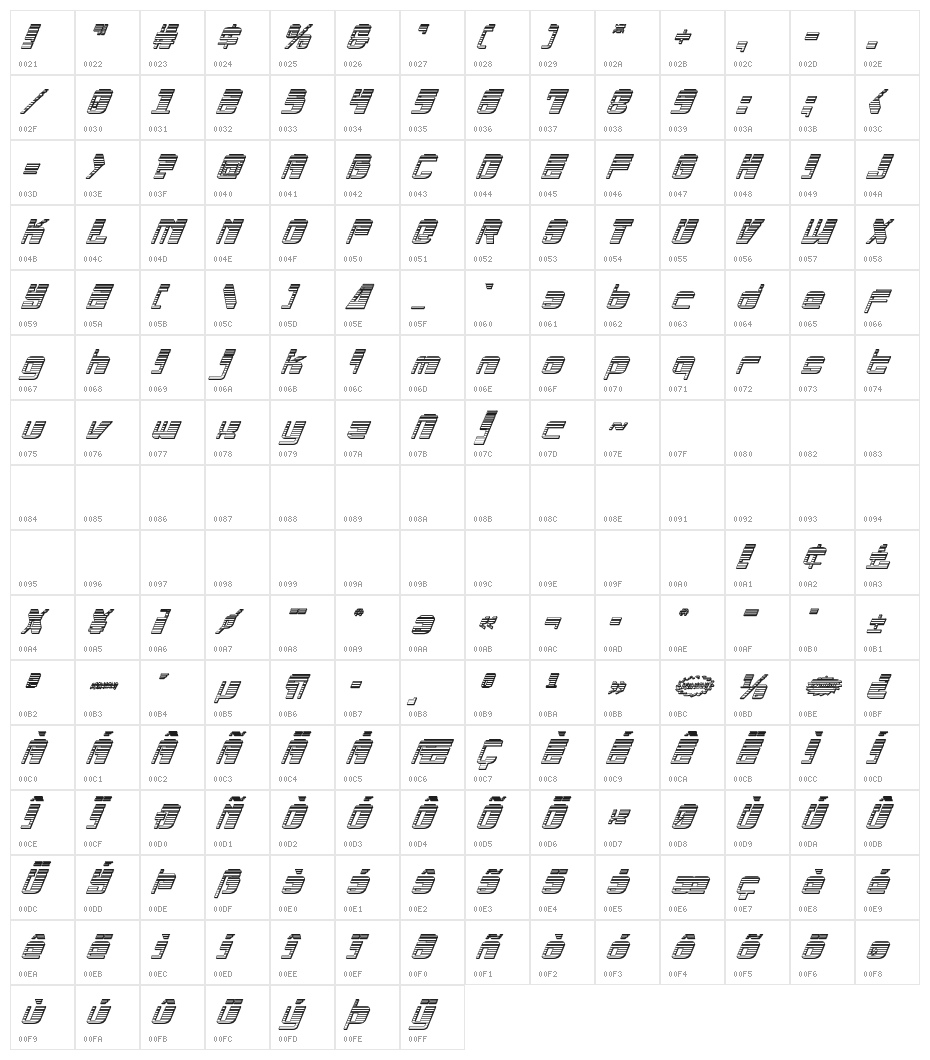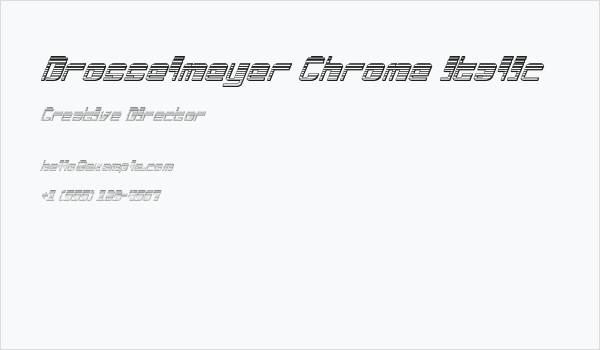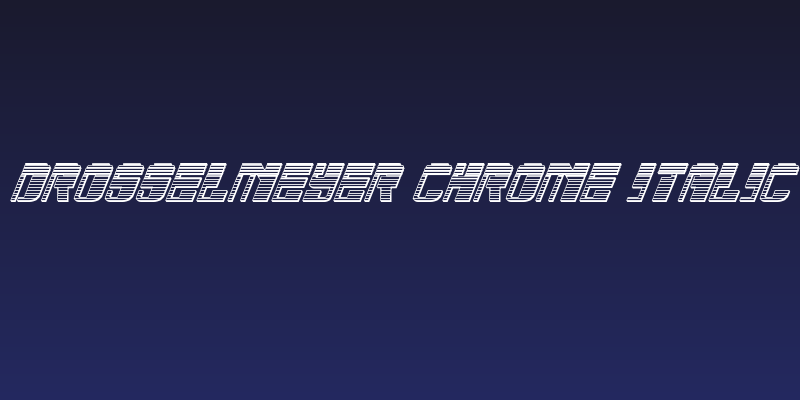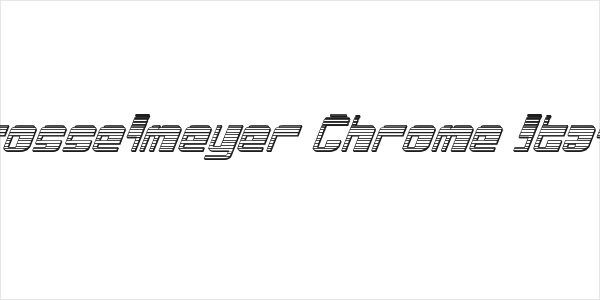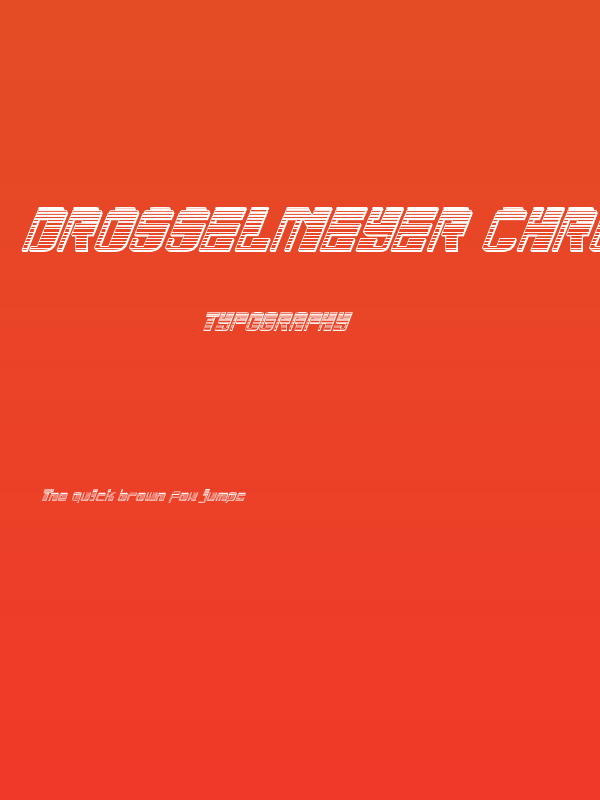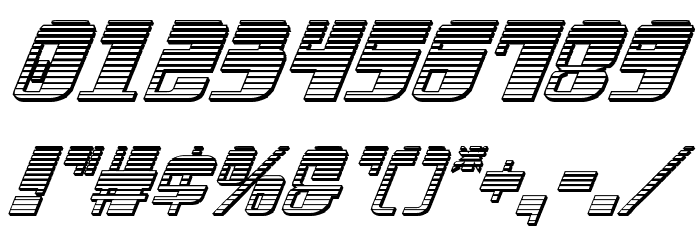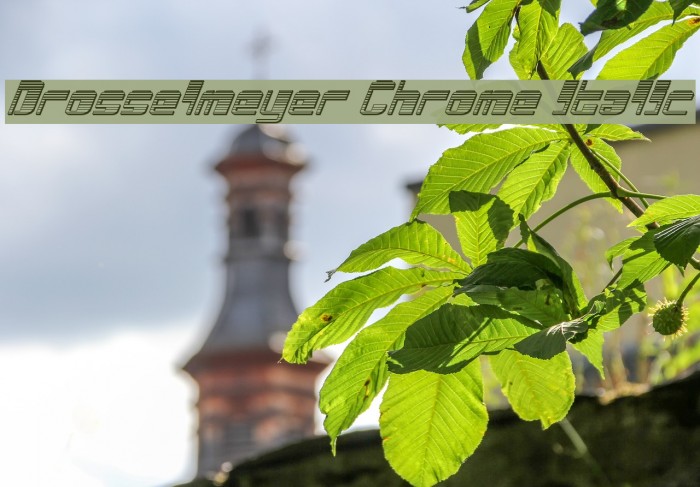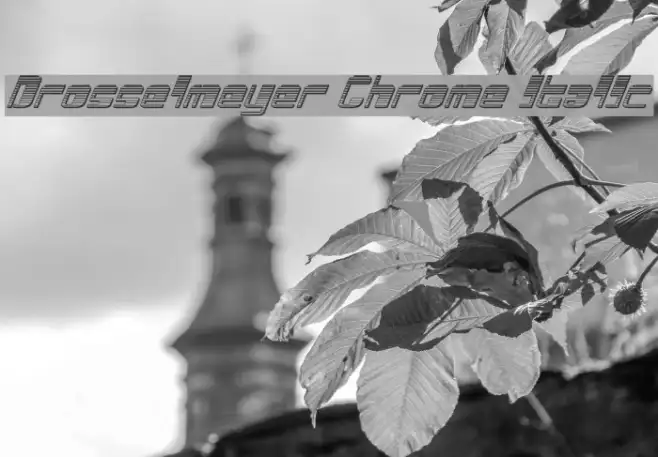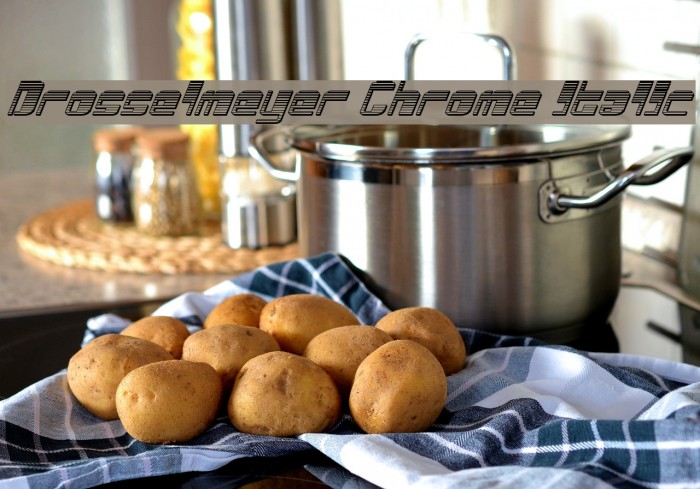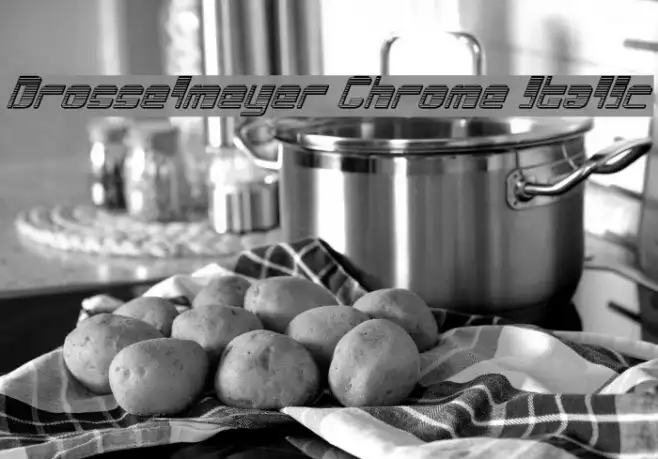
Drosselmeyer Chrome Italic Font
Drosselmeyer Chrome Italic Description
This font features a unique, futuristic design with a strong emphasis on horizontal lines and a three-dimensional effect. Each character is constructed with parallel lines that create a sense of depth and movement, giving it a dynamic and modern appearance. The italic slant adds to its sleek and forward-leaning style, making it stand out in any design. The uppercase and lowercase letters maintain a consistent style, while the numerals and special characters complement the overall aesthetic. This font is perfect for projects that require a bold, eye-catching look.
| Proposed Projects | Ideal for sci-fi themed designs, tech branding, video game titles, and modern posters. |